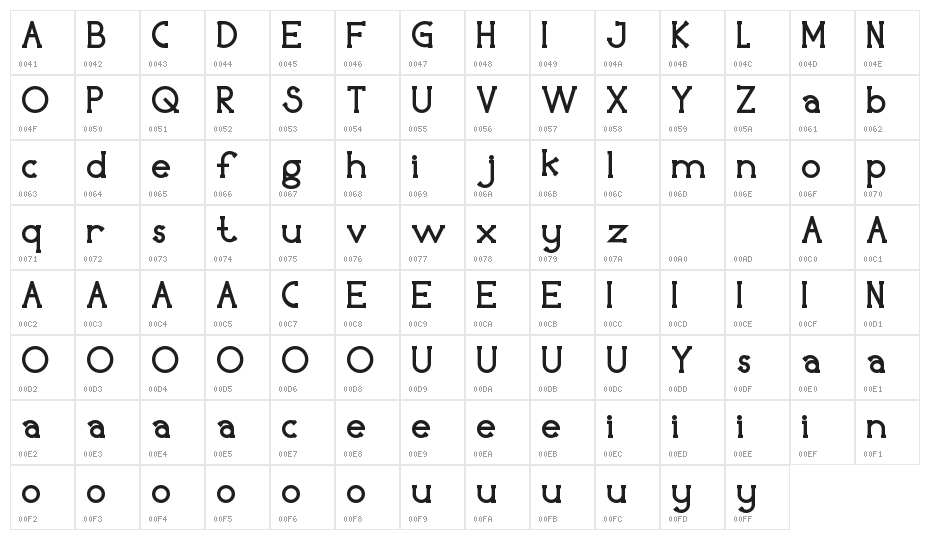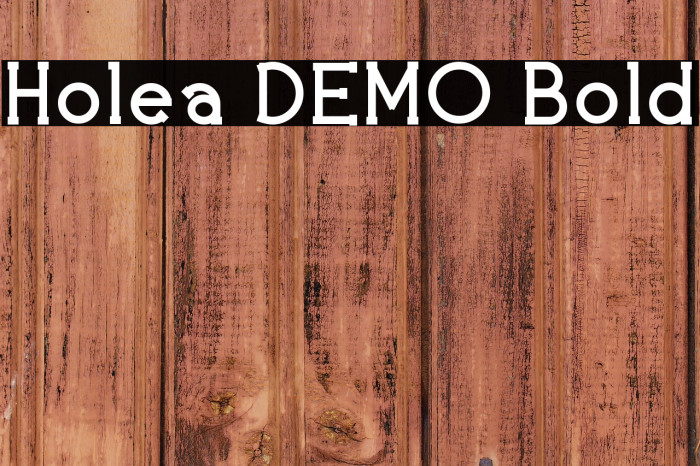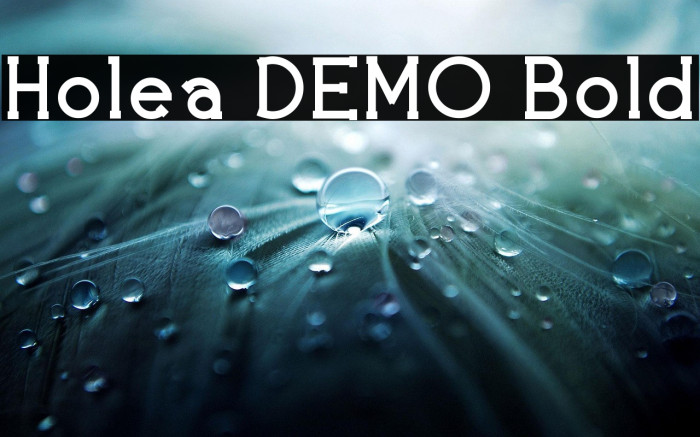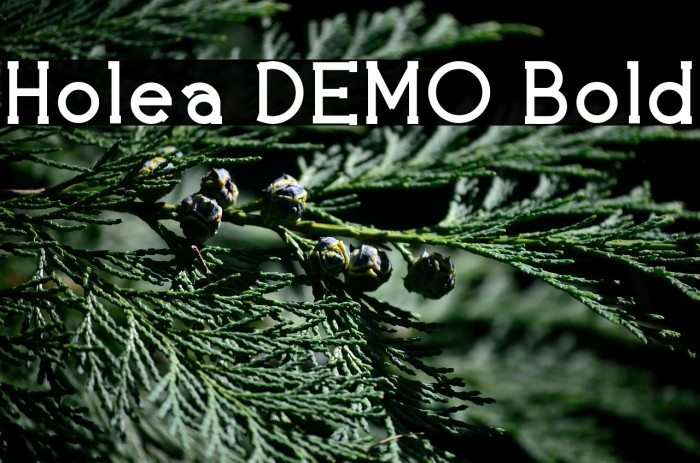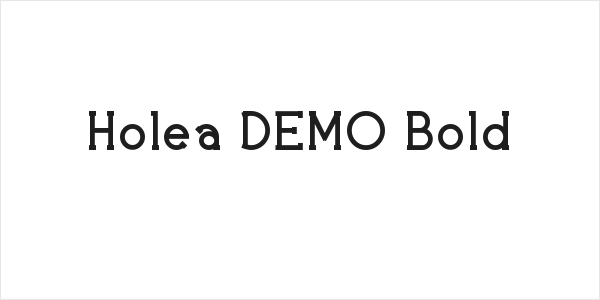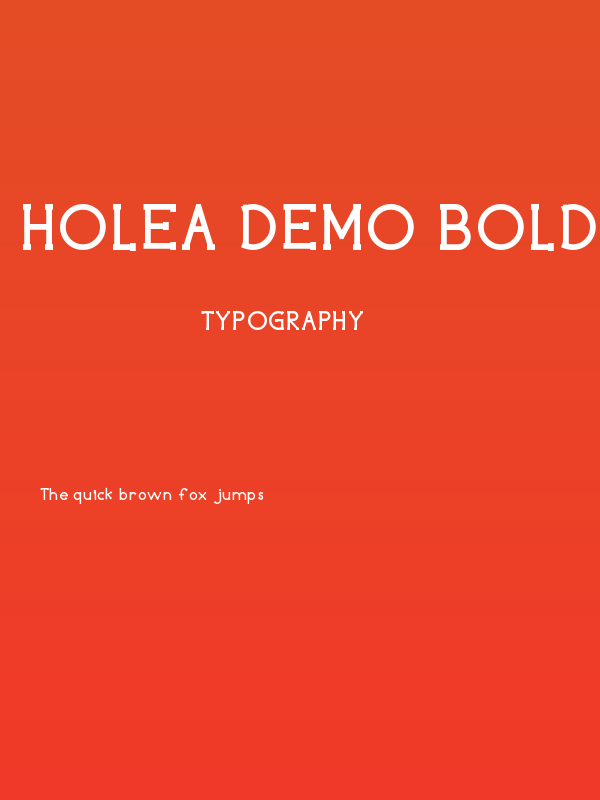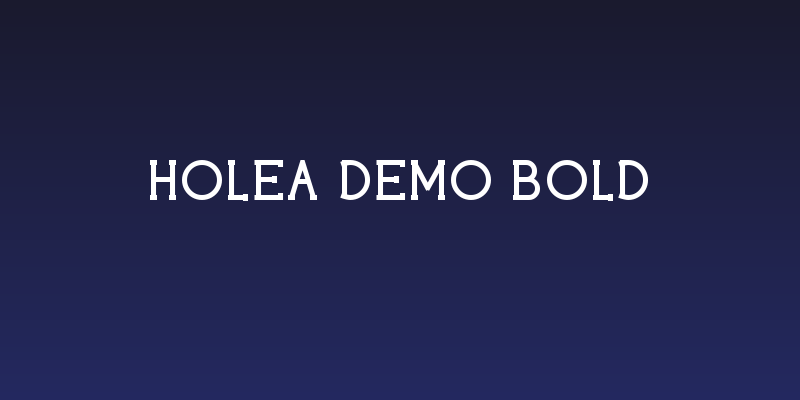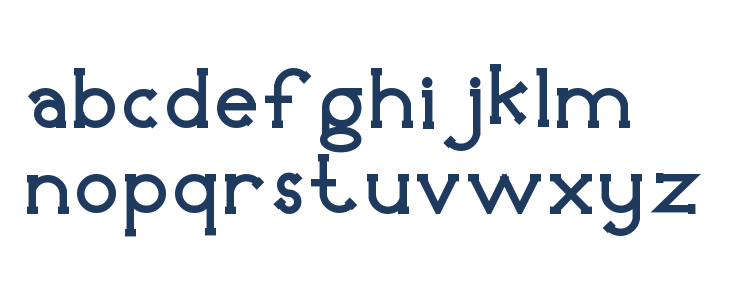
Holea DEMO Bold Font
Holea DEMO Bold Description
This font features a bold and distinctive style with a modern twist on classic serif elements. The characters are well-defined with a strong presence, making them suitable for attention-grabbing headlines and titles. The uppercase and lowercase letters maintain a consistent weight, providing a harmonious look across different text sizes. The numerals and special characters are designed to complement the alphabet, ensuring versatility in various design contexts. The font's boldness is balanced by its clean lines and subtle curves, offering a contemporary feel while retaining a touch of traditional elegance.
| Proposed Projects | Ideal for branding, editorial design, posters, and advertising materials. |